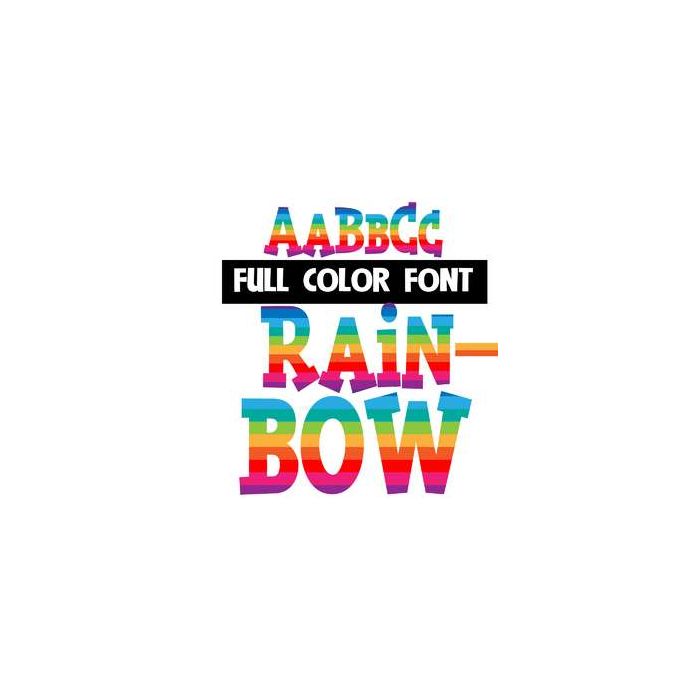
This full-color font features a simple rainbow pattern inside a blocky serif font. This font works best for titles, displays, posters and more. Please note color fonts will show as black in non compatible programs. This font type is compatible with Silhouette Studio.